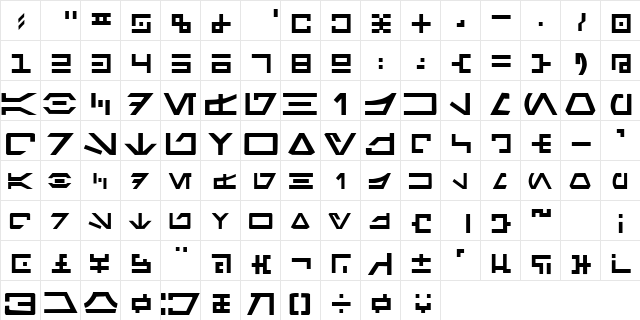
Aurabesh Regular
Design Context for Aurabesh Typeface
Aurabesh is a composed and adaptable typeface that performs quietly and consistently across a wide range of design contexts.